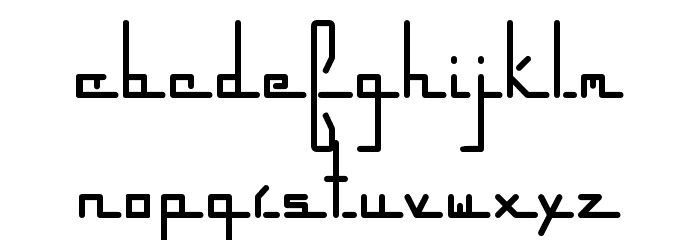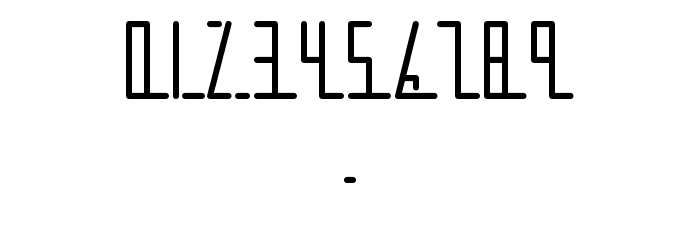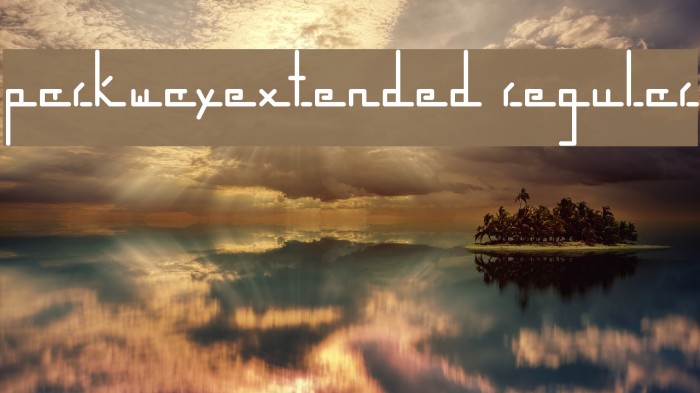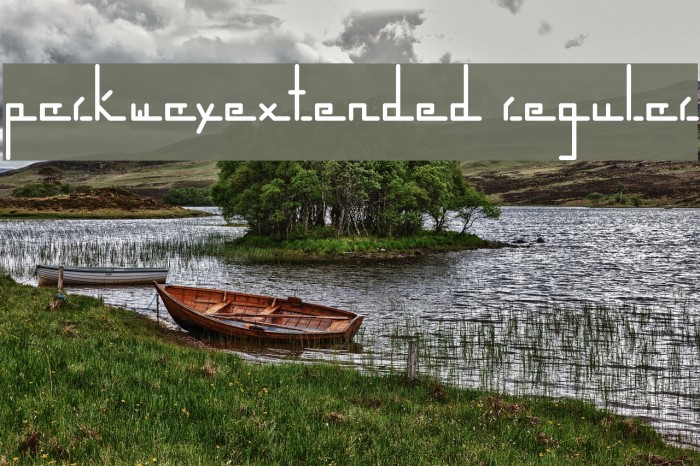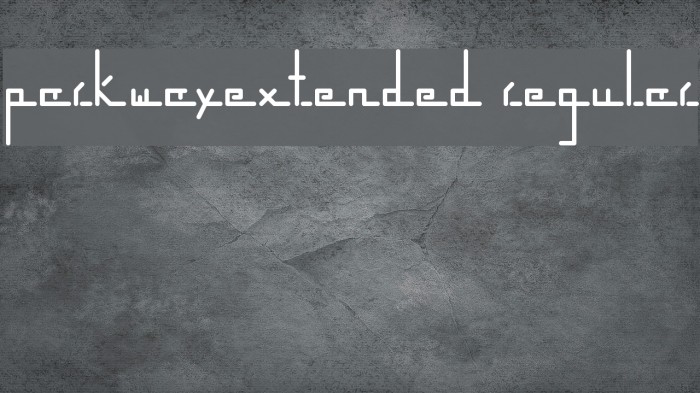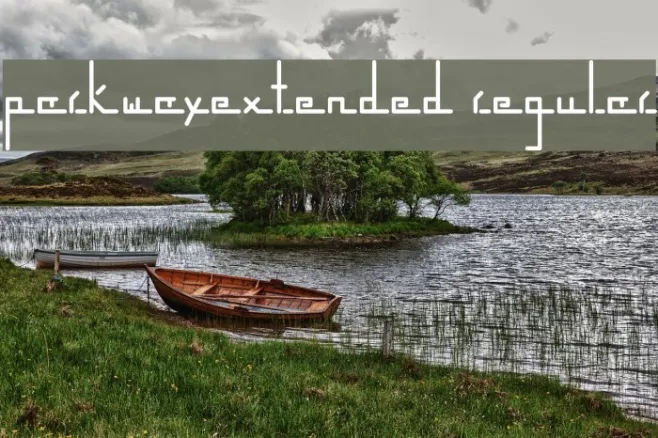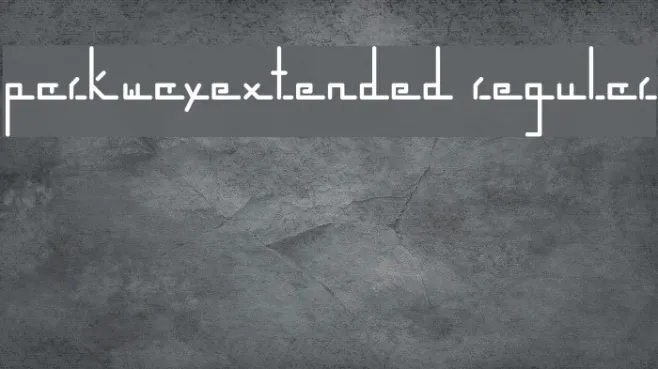
parkwayextended Regular Font
This font features a unique, geometric design with a modern and futuristic appeal. The characters are constructed with a consistent line weight and a distinct, angular style that gives it a digital or technological feel. The uppercase and lowercase letters share similar characteristics, maintaining a uniform appearance across the alphabet. The numerals and special characters follow the same design principles, ensuring a cohesive look throughout. The font's structure is clean and minimalistic, making it suitable for projects that require a contemporary and innovative aesthetic.
A geometric, modern font with a digital and futuristic style.